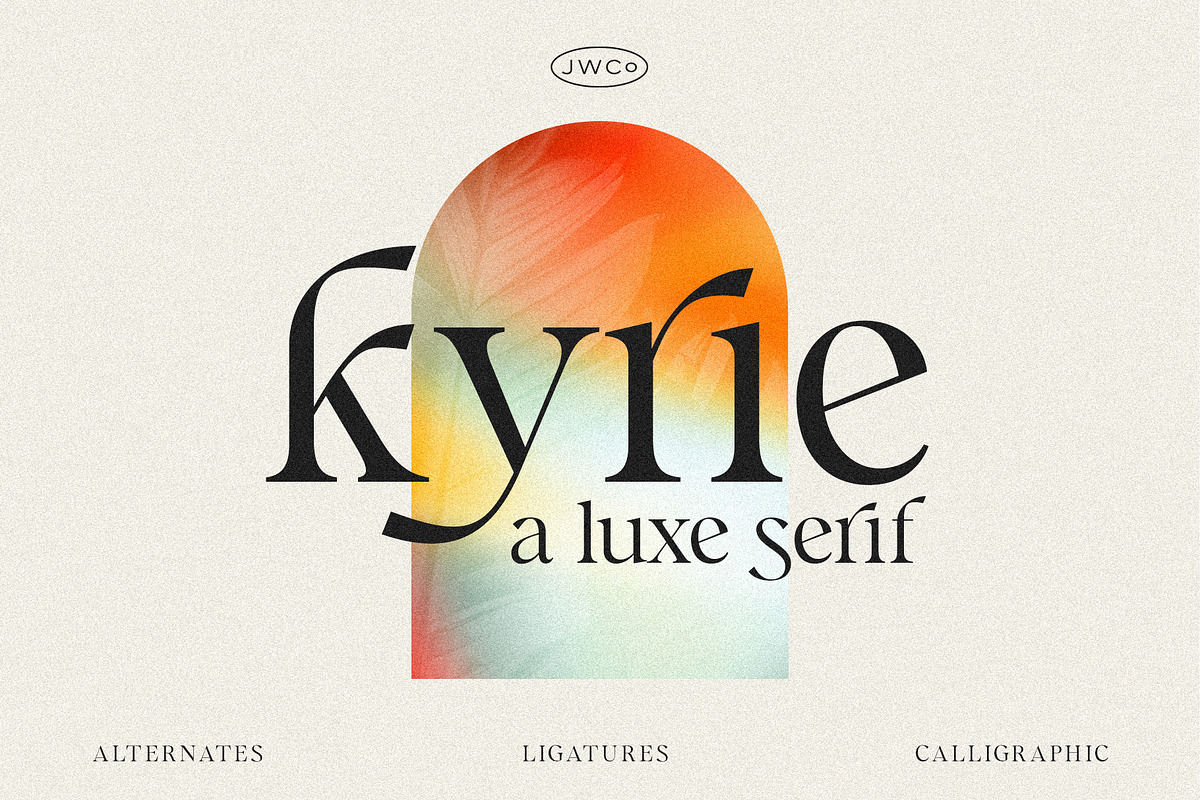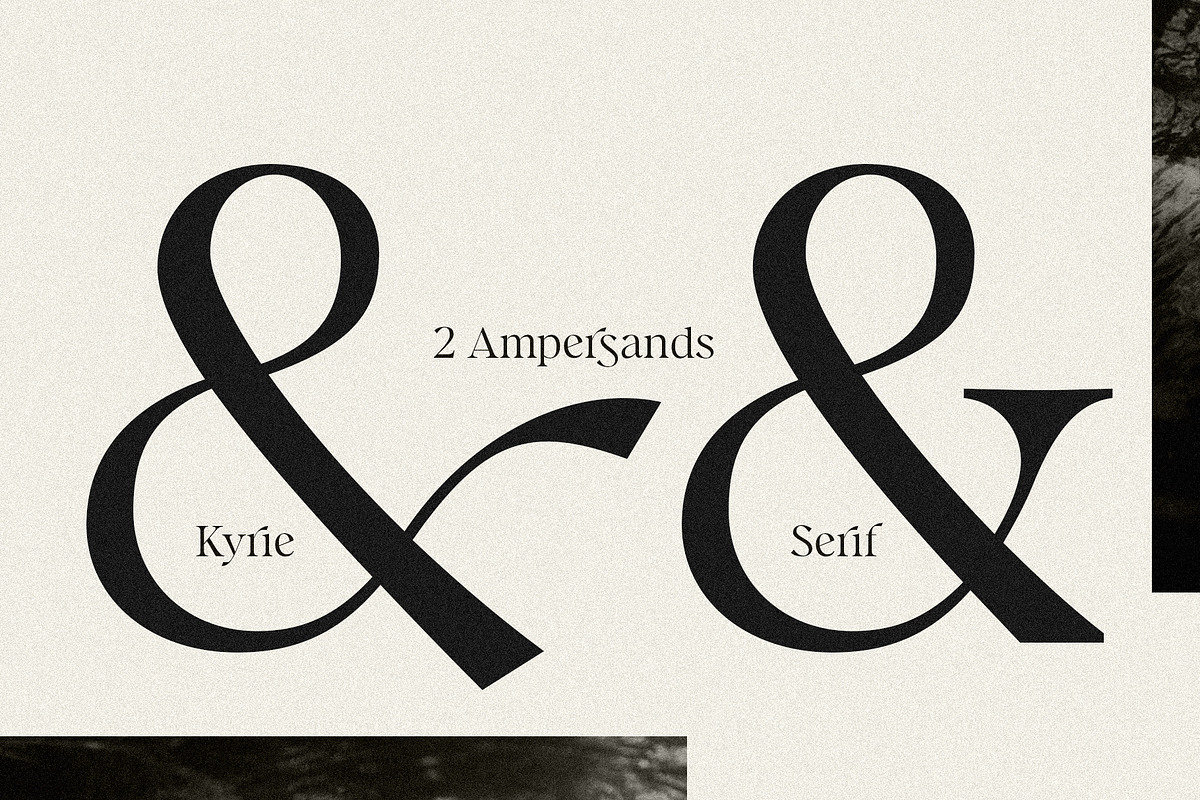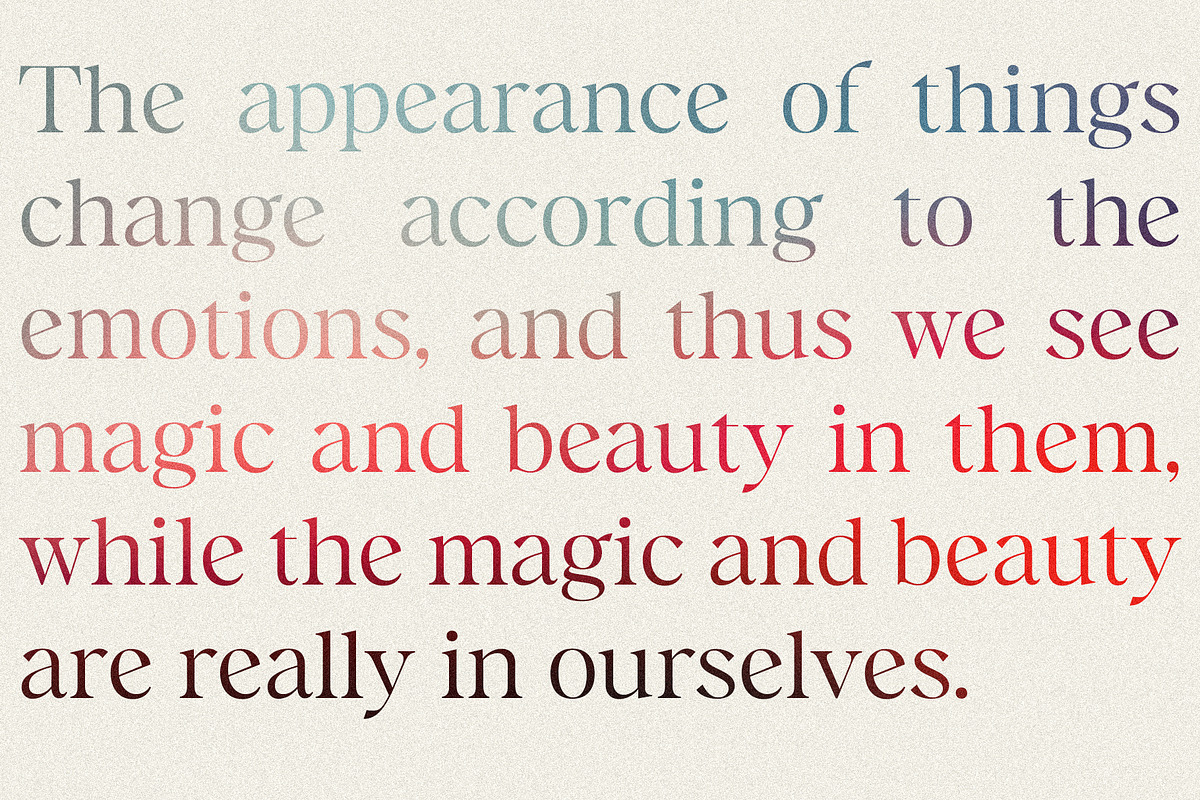
Kyrie: A Luxe Calligraphic Serif
Kyrie is a luxe, calligraphic upper and lowercase display serif that works beautifully for branding projects and quotes. Best used as a display for headings and logos, Kyrie's clean lines, smooth curves, and true-to-form calligraphic style give any project a touch of luxury and class.
There are alternates available for K, b, d, g, h, j, k, l, r, s, y, &, and 5 that give each character some extra calligraphic flair (available via the special characters panel; see this article for help accessing them: https://www.macworld.com/article/3052388/how-to-access-advanced-opentype-features-in-a-variety-of-mac-apps.html )
This font is pretty versatile in the sense that it can be used normally, but also looks SO good in all caps. I recommend using the upper- and lower-case letters with the alternates and ligatures to create your logos, and use all uppercase letters for subheadings (see the "Whistle Farms" sample logo above). When creating quotes, I'd probably keep the alternates turned off for easy reading, depending on the length of your quote :) Set a gradient image as a clipping mask in Photoshop on top of your quote text to create a similar look as the sample quote you see above!